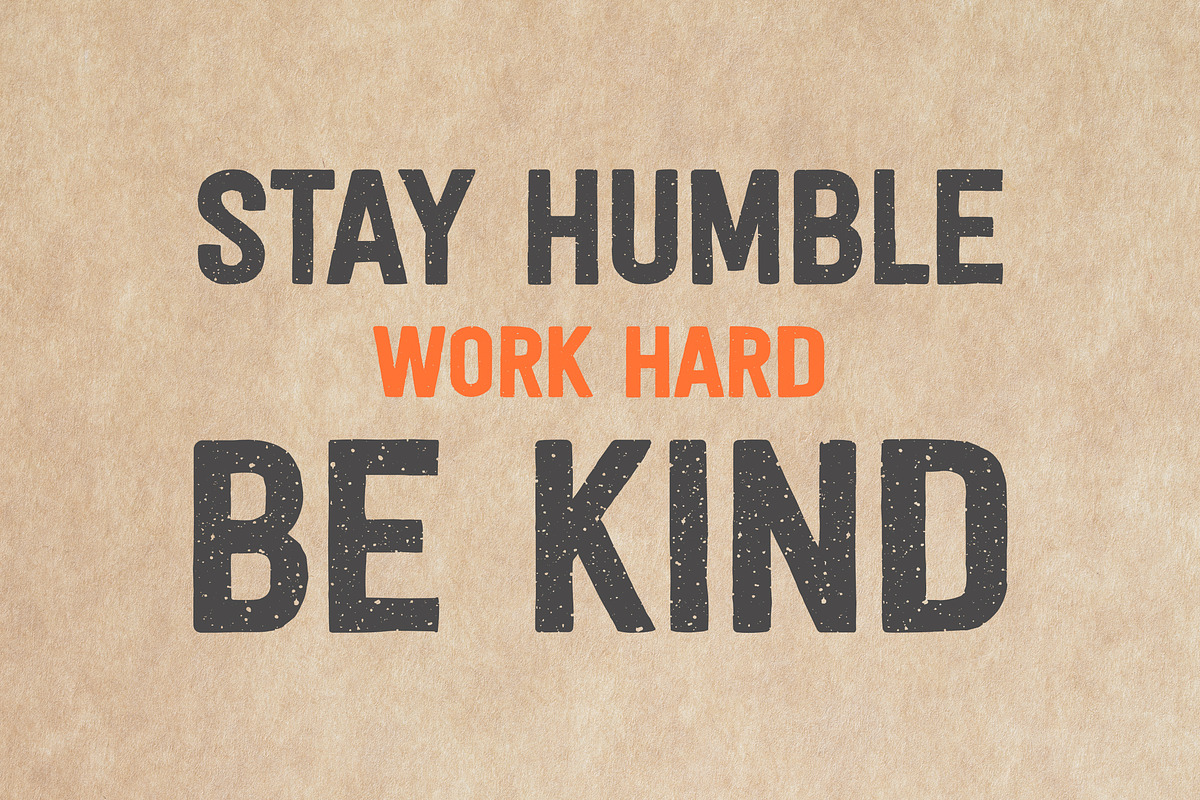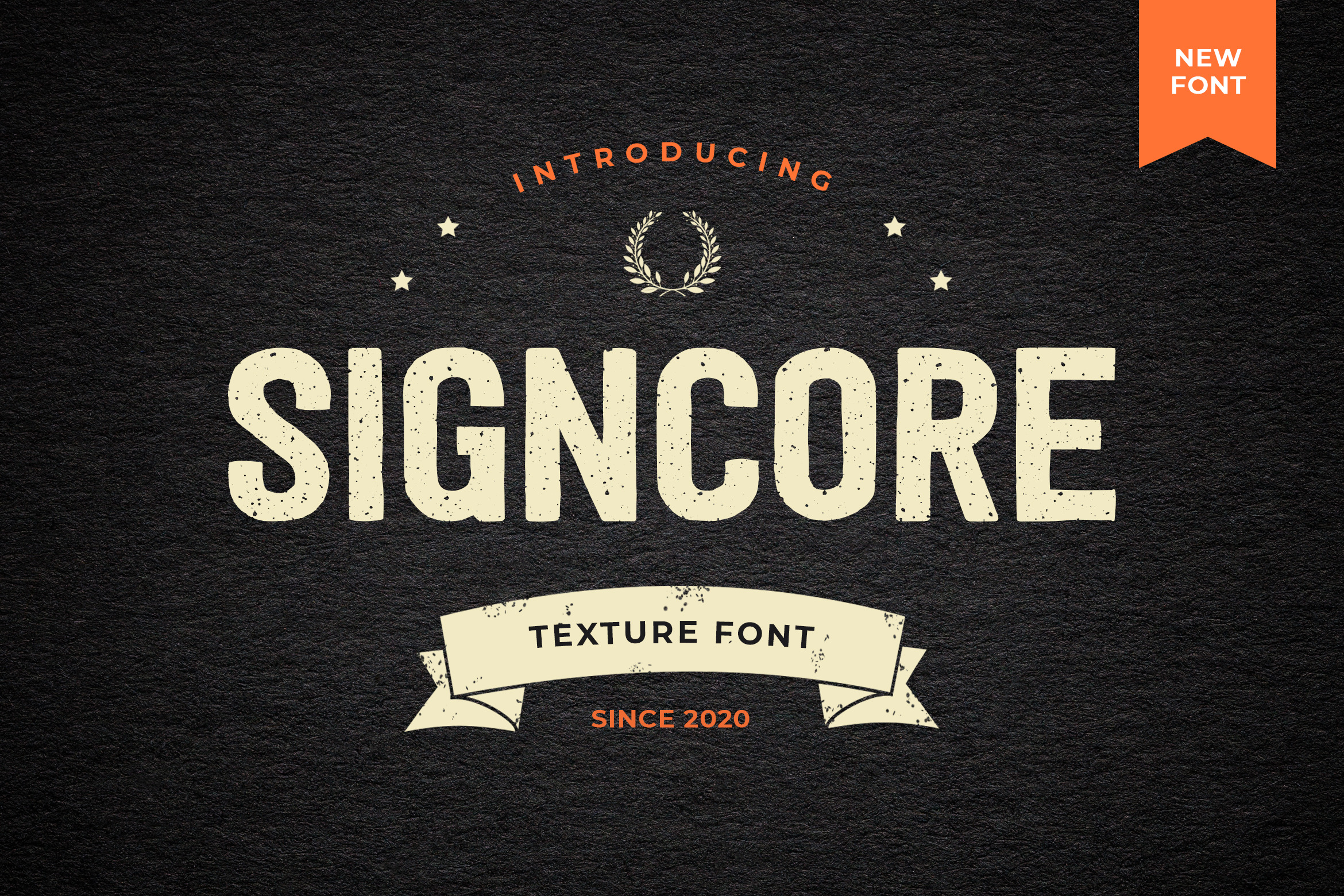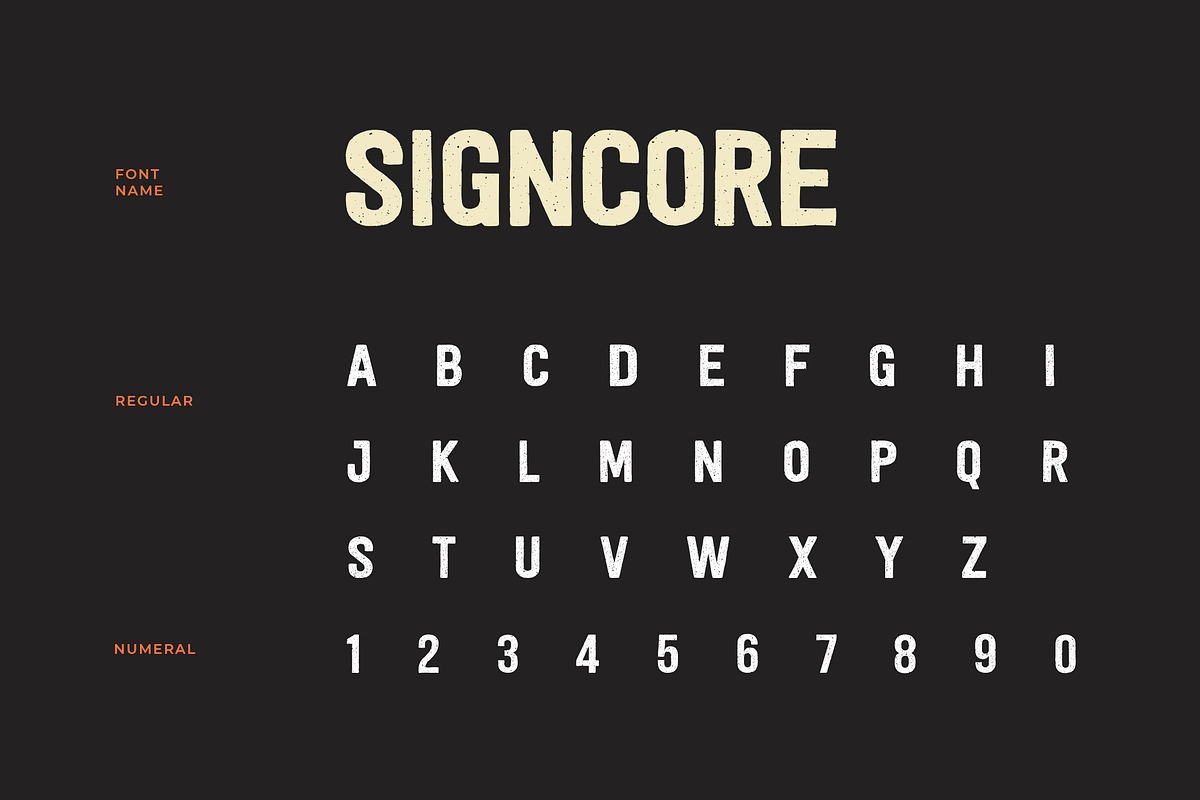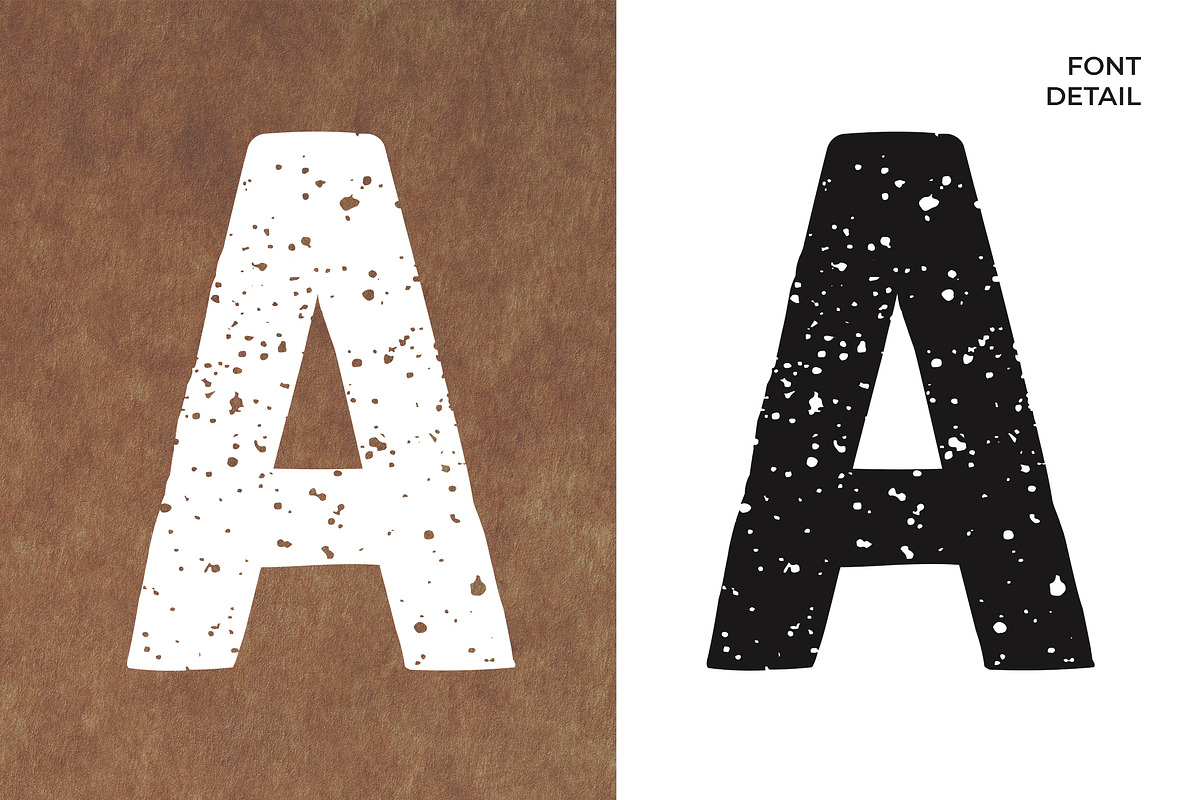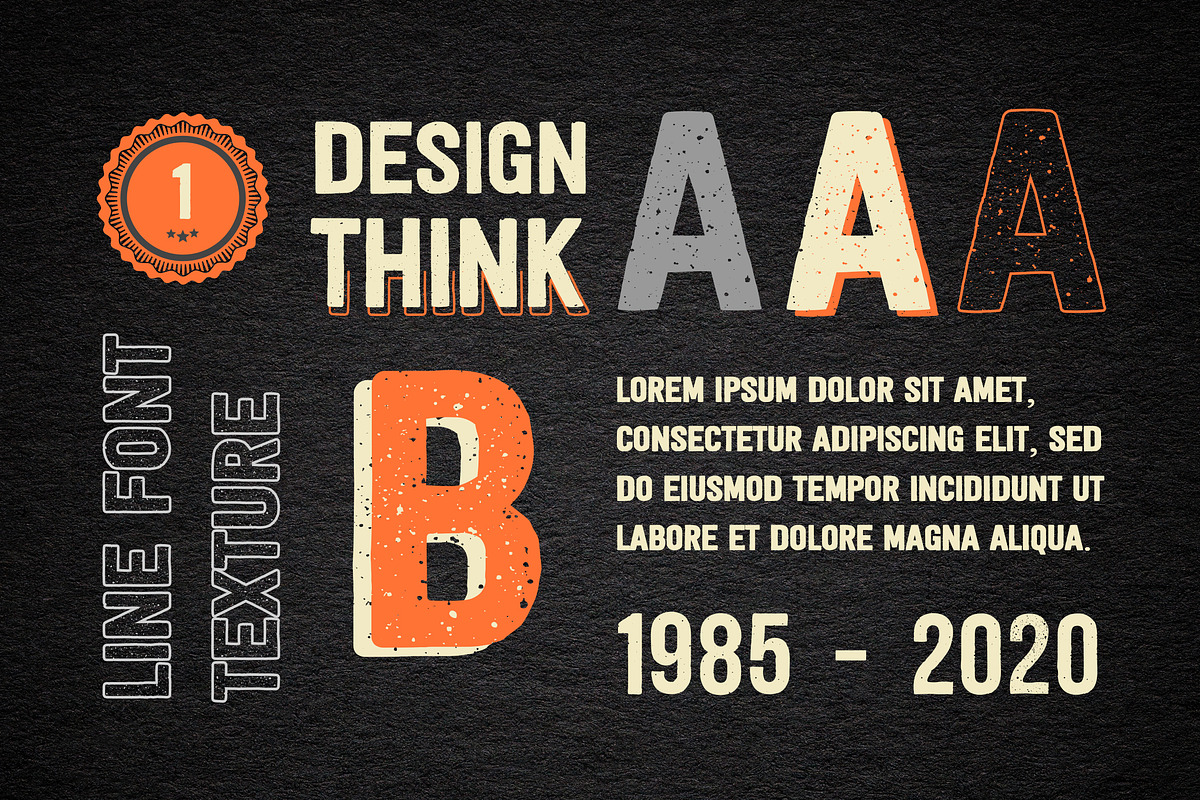
Signcore Sans Serif Texture Font
Signcore is a premium high-resolution letterpress family with rectangular letterforms and authentic, hand-crafted texture.
This font has a really nice flow so you use for many different projects such as logos & branding, invitation, stationery, wedding designs, social media posts, advertisements, product packaging, product designs, label, photography, watermark, special events or anything that need handwriting taste.